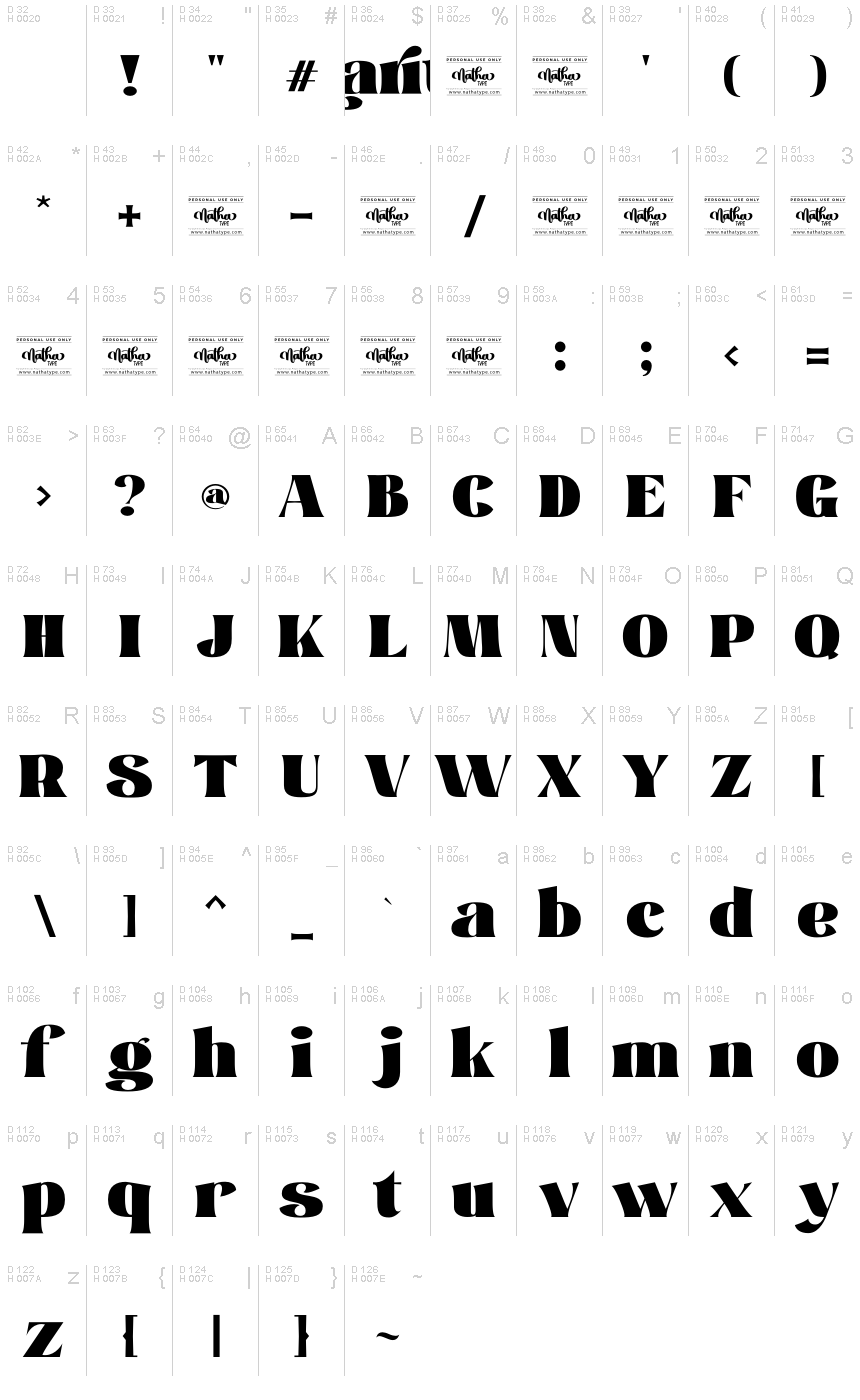
Karita Personal Use
Karita, a bold and expanded serif font designed by Nathatype, exudes a sense of authority and grandeur. Its sturdy letterforms and generous width create an impactful visual presence, making it a striking choice for headings, titles, and attention-grabbing design elements. The font's elegant, yet robust aesthetic lends itself well to a wide range of applications, from editorial layouts to branding and packaging.
Karita's versatility shines through its ability to command attention while maintaining a timeless, sophisticated feel. Its expanded proportions and bold weight give it a unique presence, making it a suitable selection for projects that require a strong, confident typographic voice, such as book covers, posters, and signage. Karita's assertive character and expansive forms make it a compelling choice for designers seeking to create an impression of authority, prestige, and visual impact.